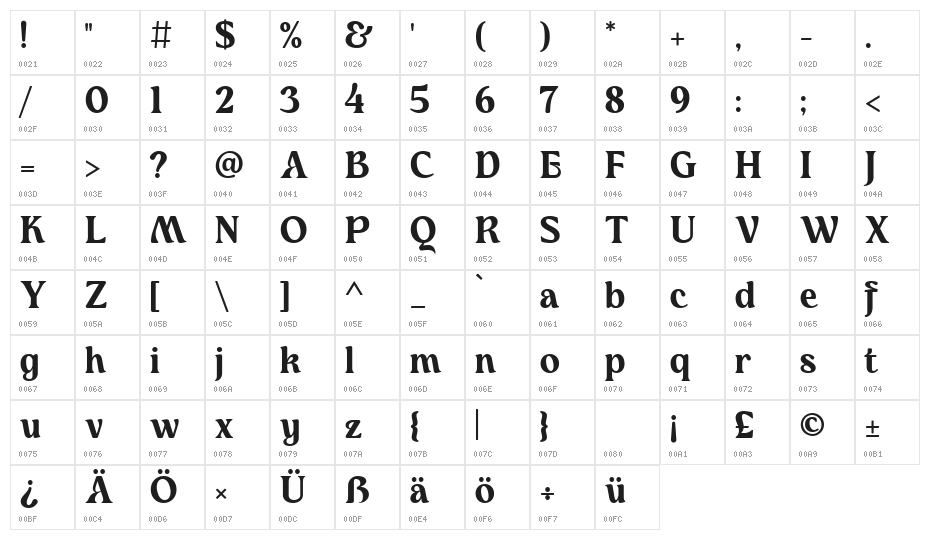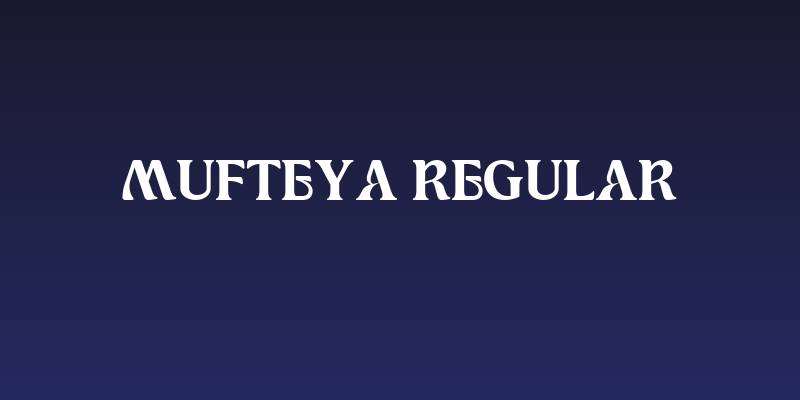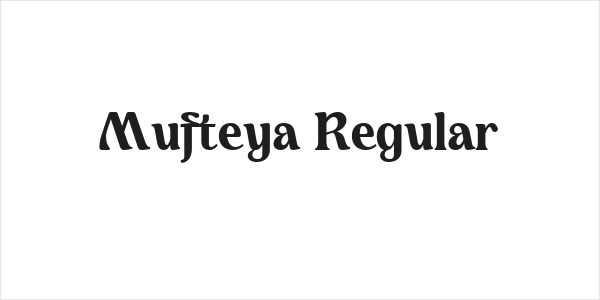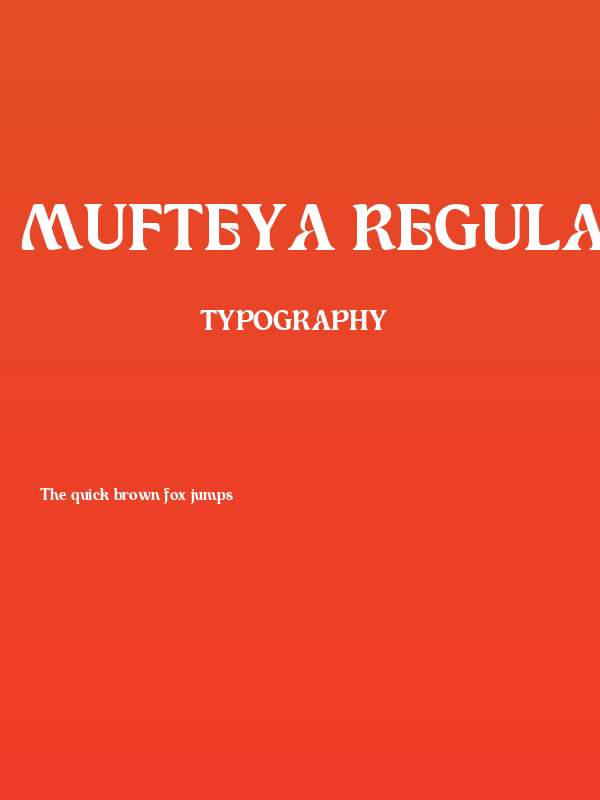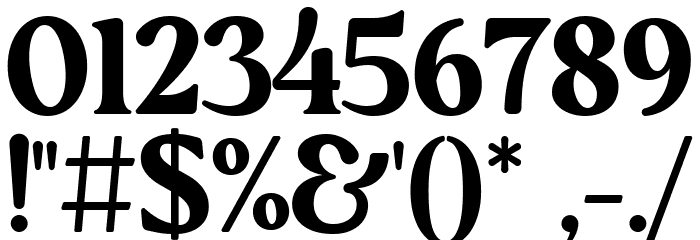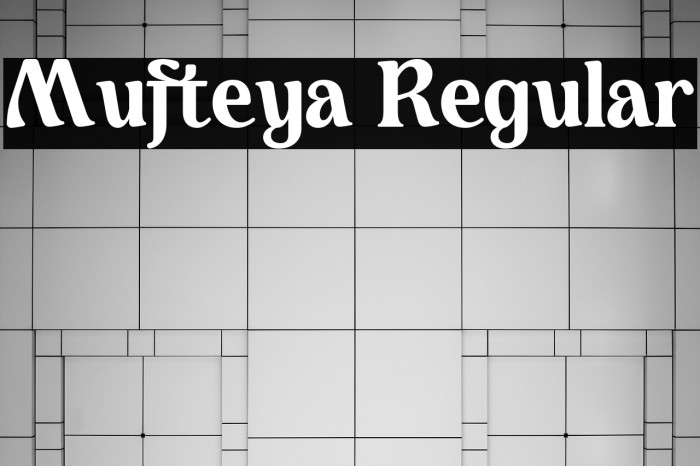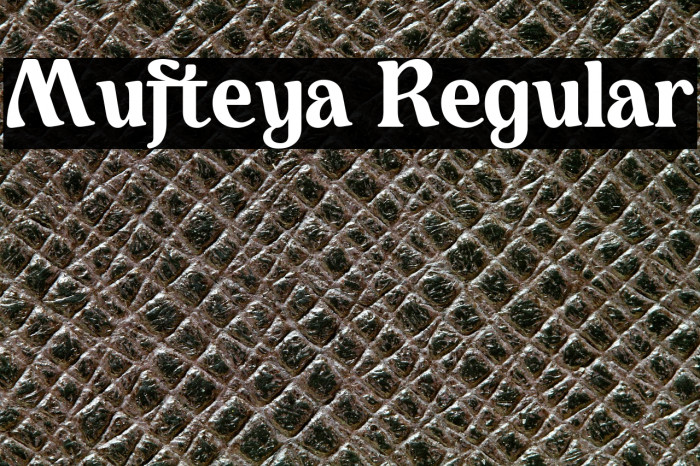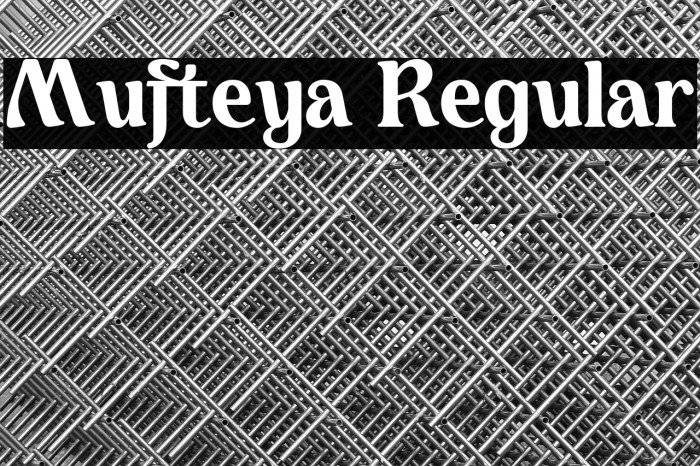
Mufteya Regular Font
Mufteya Regular Description
This font features a bold and expressive style with a strong presence, characterized by its thick strokes and slightly curved serifs. The uppercase letters exhibit a traditional yet playful design, while the lowercase letters maintain a consistent flow with unique flourishes. The numerals are robust and easily legible, complementing the overall aesthetic. Special characters are designed with attention to detail, enhancing the font's versatility. This font is suitable for projects that require a bold statement and a touch of elegance.
| Proposed Projects | Ideal for branding, headlines, posters, and editorial design where a bold and elegant statement is needed. |